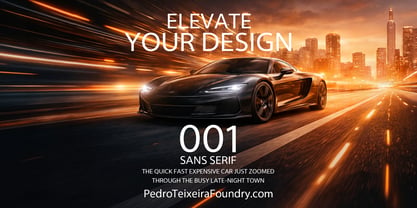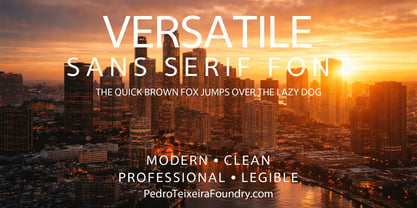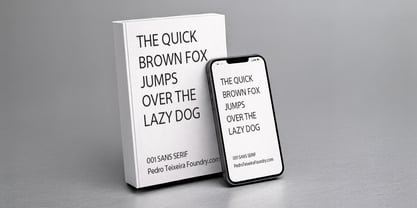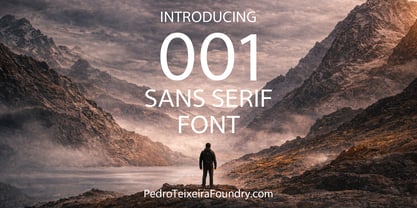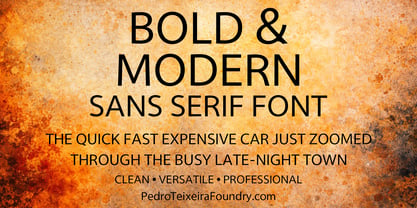
001 Sans Serif Family
by Pedro Teixeira
The 001 Sans Serif Family Font Family was designed by Pedro Teixeira and published by Pedro Teixeira. 001 Sans Serif Family contains 2 styles and family package options. More about this family
001 Sans Serif is a clean, modern, and highly versatile typeface designed for bold visual identity, editorial design, branding, and digital interfaces. Built with precision and clarity, it delivers strong typographic presence while maintaining exceptional readability across print and screen. Designed by Pedro Teixeira Foundry. 001 Sans Serif – A Contemporary Typeface for Powerful Visual Communication 001 Sans Serif is a modern geometric sans serif typeface created to deliver clarity, authority, and elegance in contemporary design systems. With carefully engineered letterforms, balanced proportions, and refined spacing, 001 offers both visual impact and functional versatility. This typeface is ideal for branding, editorial layouts, posters, advertising campaigns, digital products, UI/UX design, social media graphics, and corporate communication. Its structure combines minimalism with strength, allowing it to perform equally well in large-scale headlines and body text applications. Key Features Clean and modern sans serif construction Geometric influence with humanist balance Strong uppercase presence Highly legible lowercase forms Balanced kerning and spacing Designed for both print and digital environments Professional and premium aesthetic Suitable for branding systems and visual identities Ideal For Brand Identity Design Logo Design Editorial Design Posters & Advertising Website Typography UI/UX Interfaces Packaging Design Social Media Content Corporate Communication Fashion & Luxury Branding Tech & Startup Branding Design Philosophy 001 Sans Serif was developed with a focus on clarity, neutrality, and visual authority. It reflects modern typographic standards while maintaining timeless usability. The letterforms are carefully structured to provide: Clean vertical rhythm Consistent stroke weight Strong typographic hierarchy Maximum adaptability across design contexts Why Choose 001 Sans Serif? Modern but timeless Minimal yet distinctive Professional and versatile Designed for high-impact visual communication Suitable for global design systems
Designers: Pedro Teixeira
Foundry: Pedro Teixeira